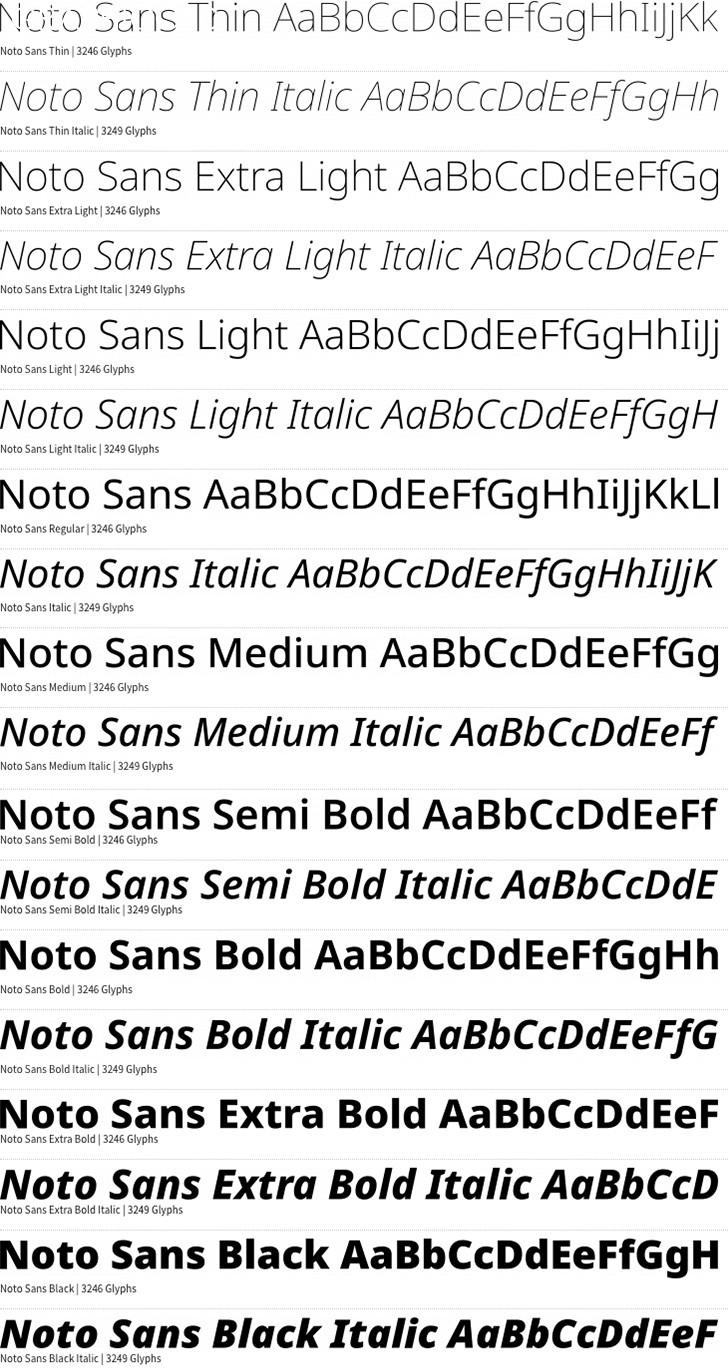
noto font: Promoting Global Accessibility through Typography
Typography plays a crucial role in enhancing readability and conveying messages effectively. In today’s digitally-driven world, where communication transcends borders, it is important to have fonts that can support various languages and scripts. One such font that has gained prominence for its ability to promote global accessibility is Noto Font.
Noto Font, short for No Tofu, is a comprehensive typeface family developed by Google. The term tofu is often used to describe the square boxes that appear when a computer or device is unable to display a particular character. Noto Font aims to eradicate these tofu characters by providing a font that supports a vast range of languages and scripts, including those that are less commonly used.
The idea behind Noto Font is to bridge the gap between diverse cultures and facilitate seamless communication. With over 800 languages spoken globally, it is essential to have a font that can accurately represent the unique characters and symbols of each language. Noto Font achieves this by incorporating over 100,000 individual characters, covering scripts such as Latin, Cyrillic, Arabic, Chinese, Japanese, and many more.
The development of Noto Font was a monumental undertaking that required collaboration and expertise from typographers, linguists, and software engineers. The team at Google worked tirelessly to ensure that every character was designed meticulously and tested across various platforms and devices. Noto Font is available in both serif and sans-serif variations, allowing users to choose the style that best suits their needs.
In addition to its practicality and accessibility, Noto Font also promotes cultural preservation. By including lesser-known scripts and languages, Noto Font helps preserve and revitalize these linguistic treasures, preventing them from being overshadowed or forgotten. This commitment to inclusivity and diversity has garnered praise and recognition from various communities around the world.
The impact of Noto Font extends beyond digital platforms. It has been used in print media, signage, and even on public transportation systems to foster understanding and inclusivity. By providing a consistent visual representation across languages, Noto Font eliminates language barriers, enabling people from different backgrounds to communicate effectively.
In conclusion, Noto Font is a remarkable achievement in the field of typography. Its comprehensive character support, open-source nature, and commitment to inclusivity have made it an invaluable resource for promoting global accessibility. Through Noto Font, Google has successfully contributed to the preservation of diverse cultures and facilitated seamless communication in our interconnected world.